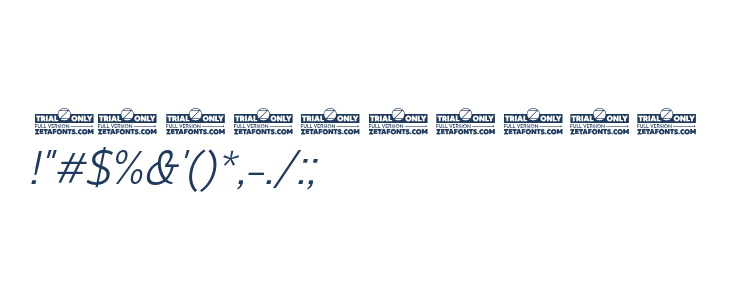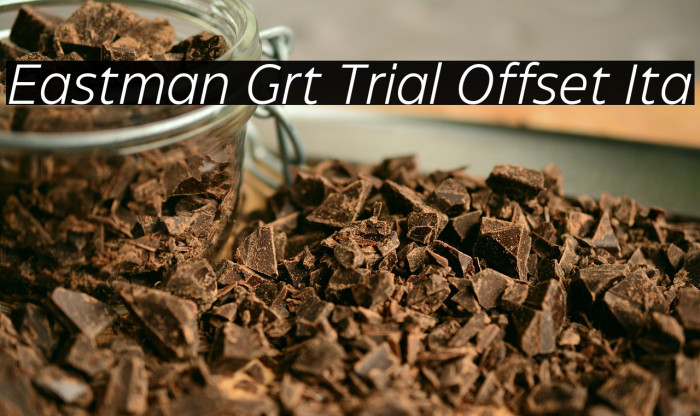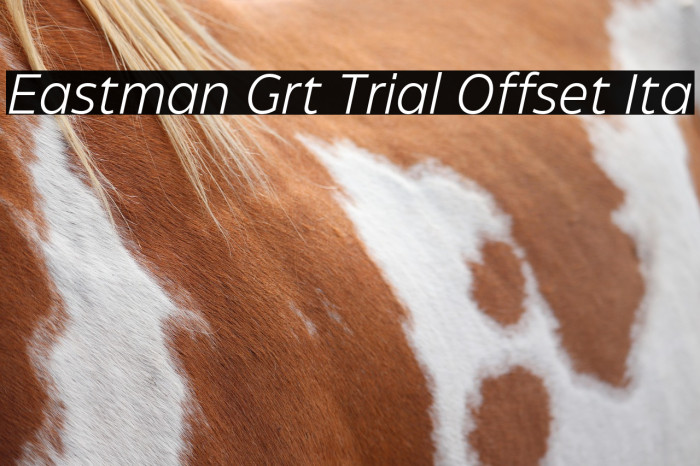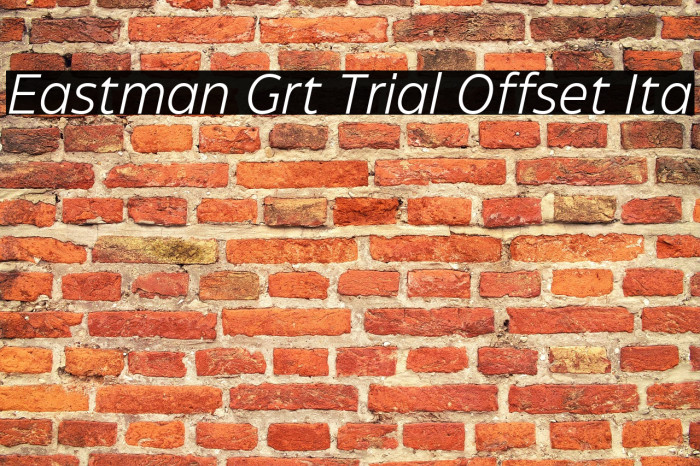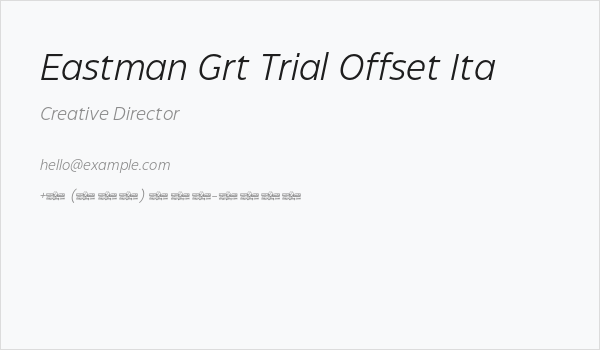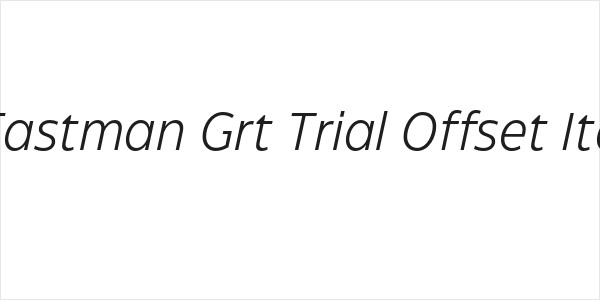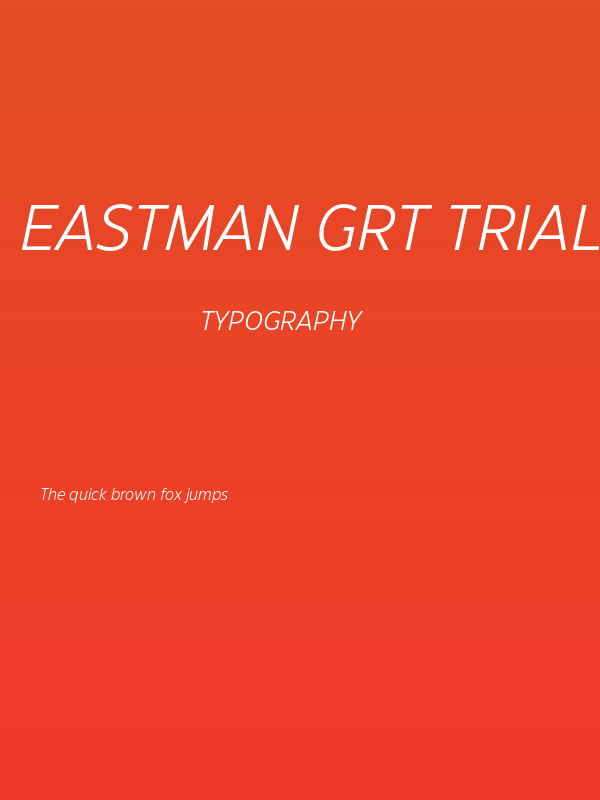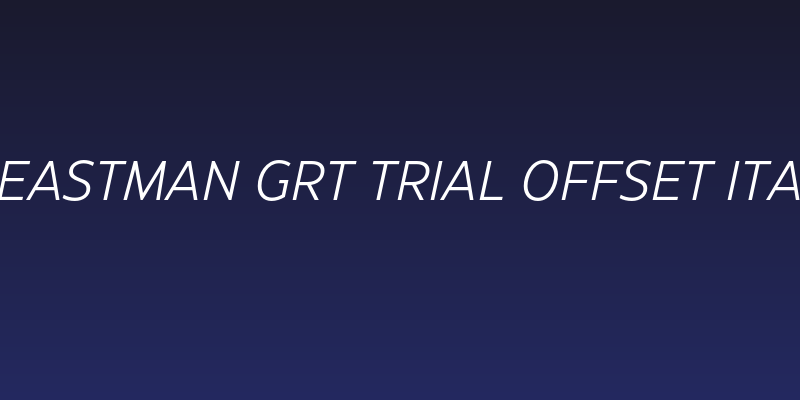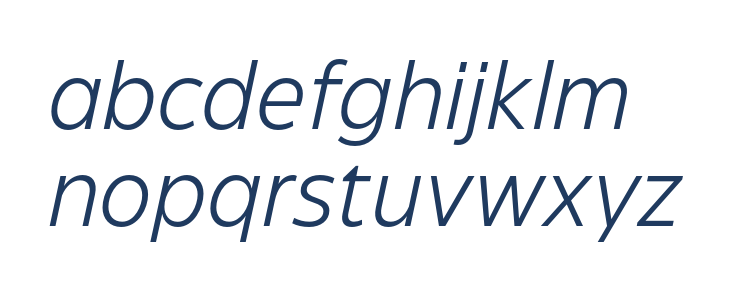
Eastman Grt Trial Offset Ita Font
Eastman Grt Trial Offset Ita Description
This font exhibits a sleek, modern design with a slight italic slant, giving it a dynamic and forward-moving appearance. The characters are clean and well-defined, with a consistent stroke width that maintains readability across various sizes. The uppercase letters are tall and commanding, while the lowercase letters are balanced and approachable. The numerals and special characters are designed to complement the overall style, ensuring versatility in different contexts. This font's contemporary aesthetic makes it suitable for a wide range of applications.